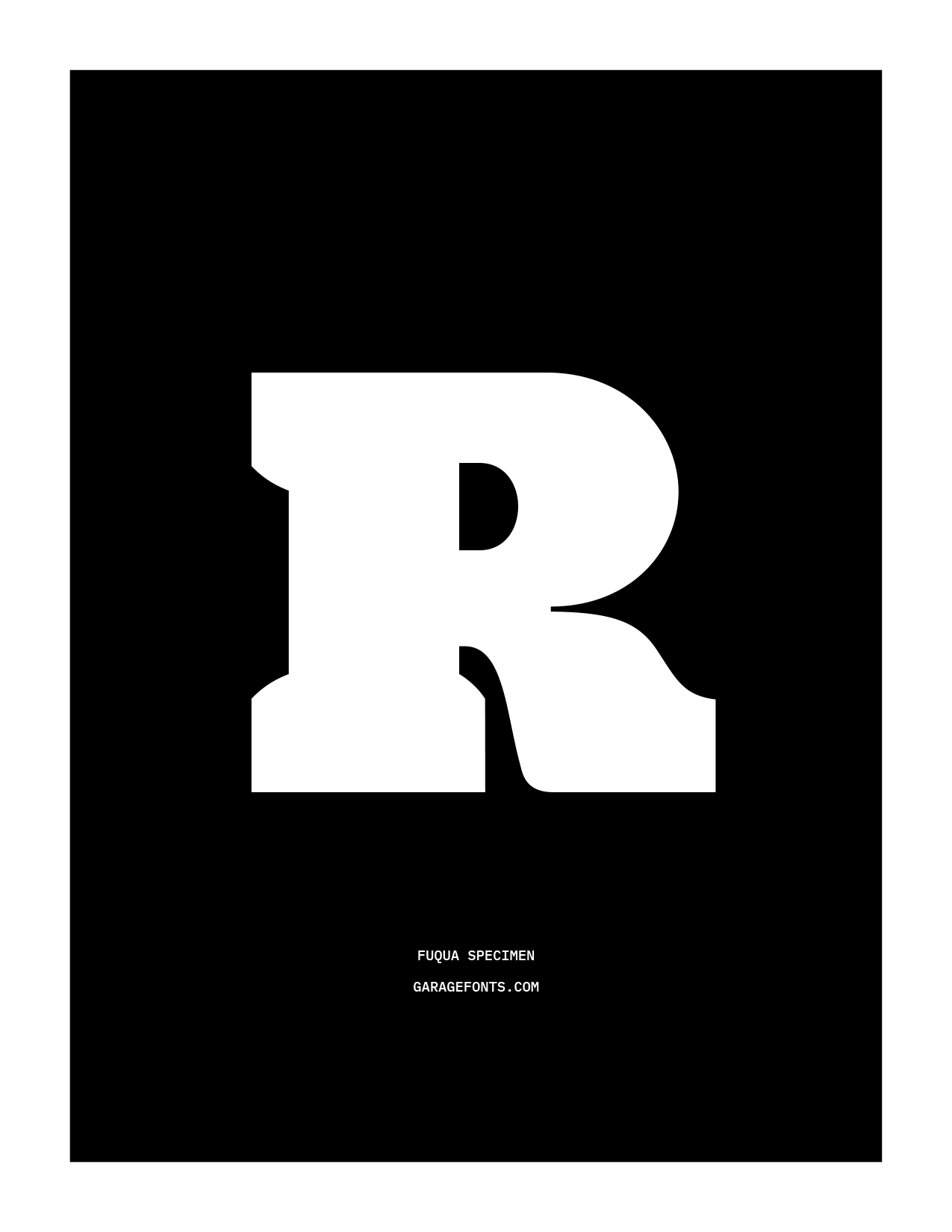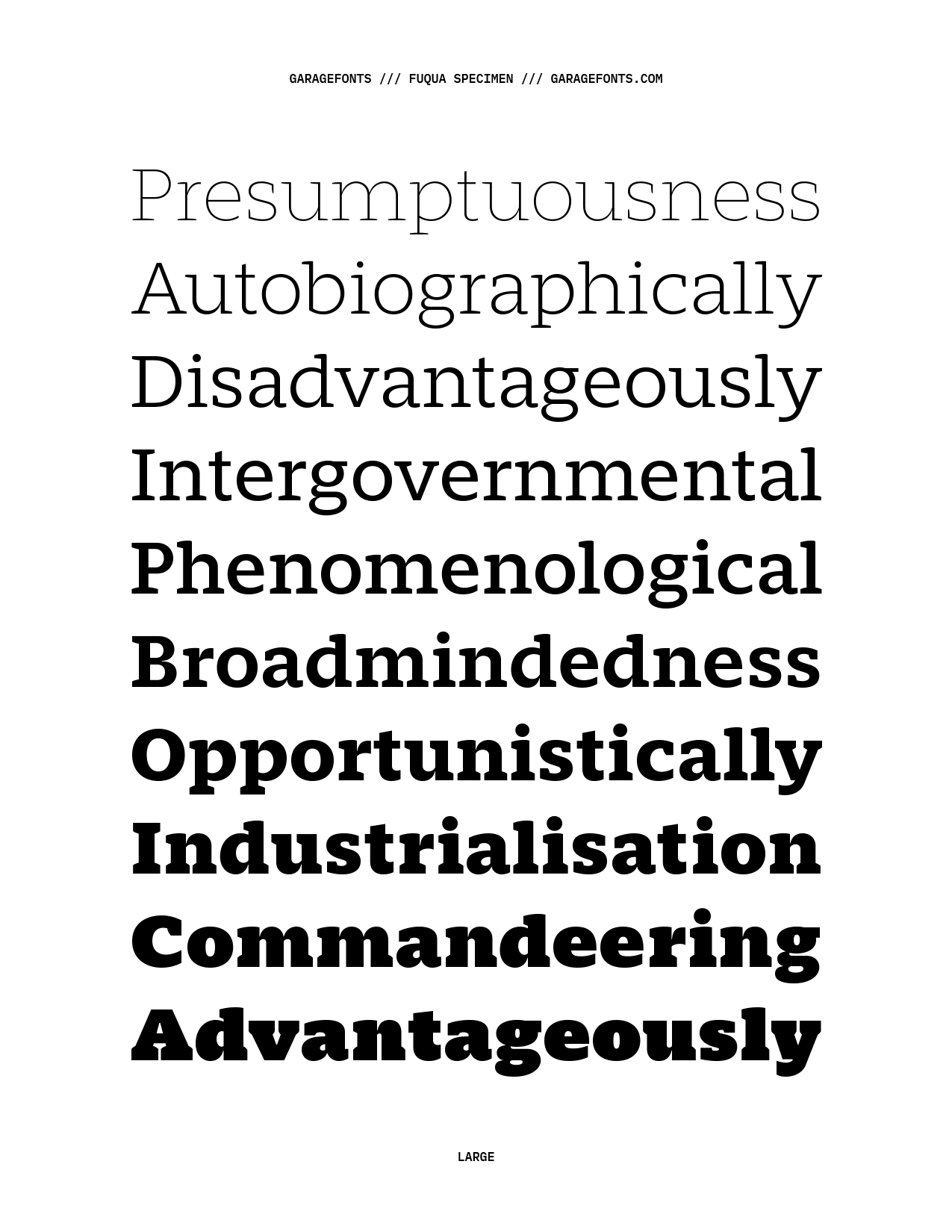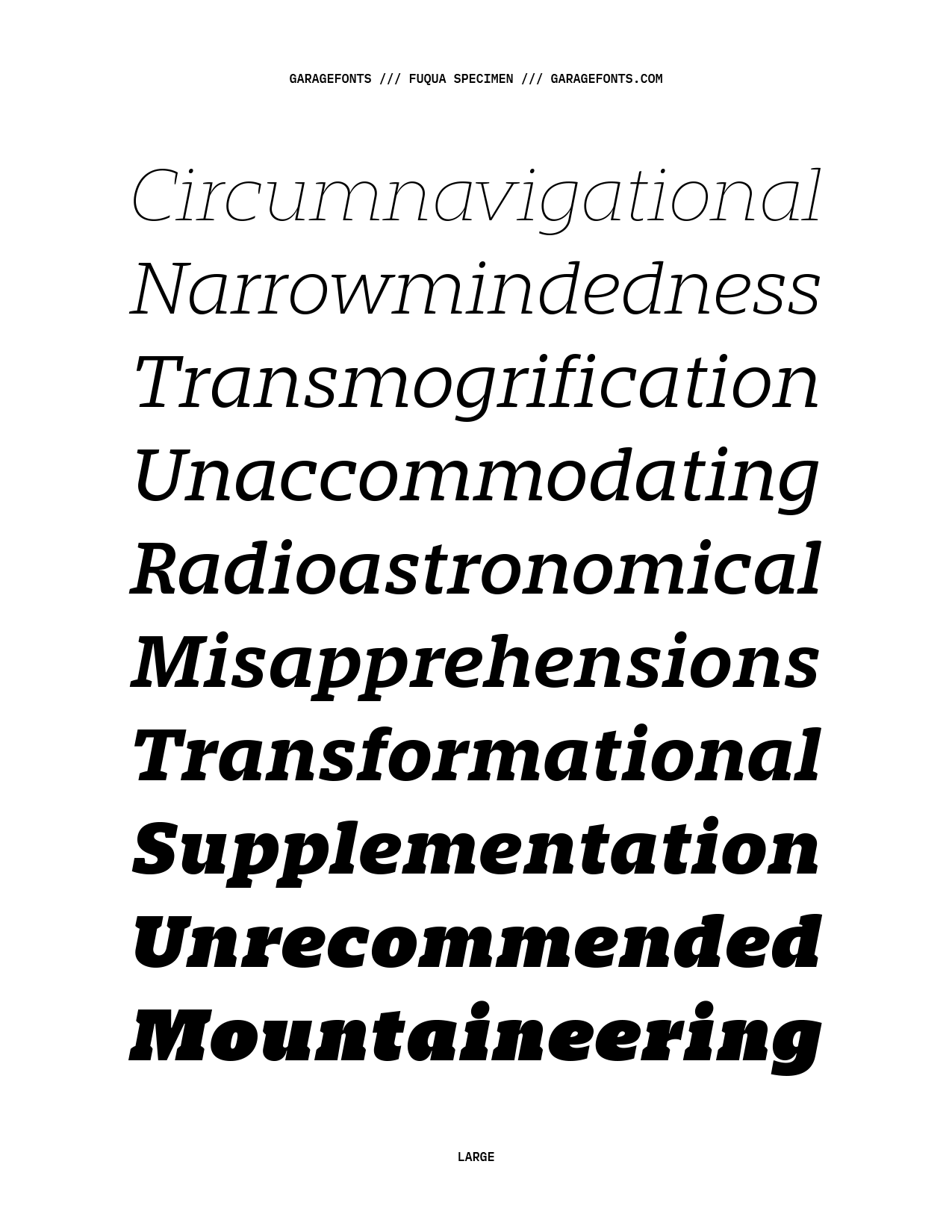
Fuqua
Fuqua Info
Fuqua is a slab serif family that is solid and sturdy, yet warm and friendly. A contemporary slab with wide, full forms and weighty foundations. It was inspired by both the grit and geometry of steel factory machinery from the late 19th century and the approachable vibe of Pittsburghers. Available in 20 styles and 2 variable fonts, Fuqua was initiated at TypeParis in 2017 and named after John “Frenchy” Fuqua, a legendary Steeler.
Designer: Jon Young